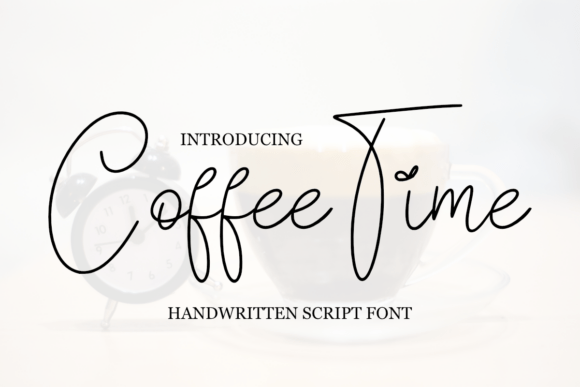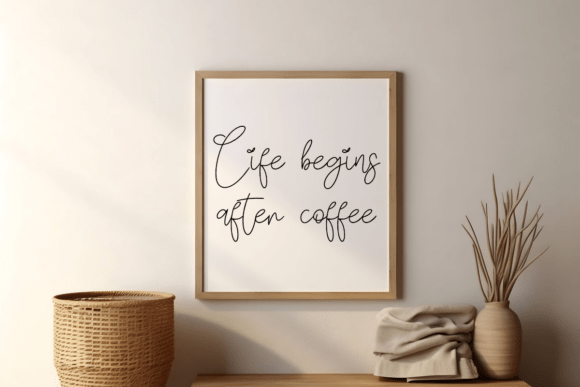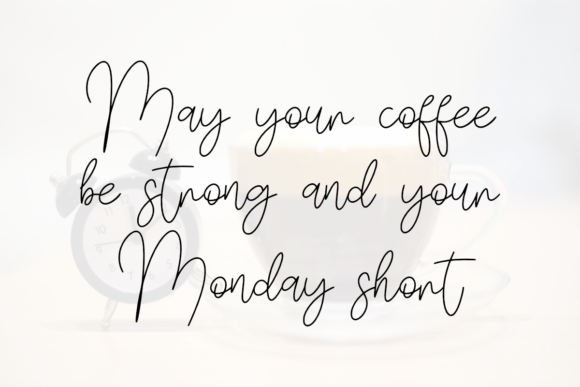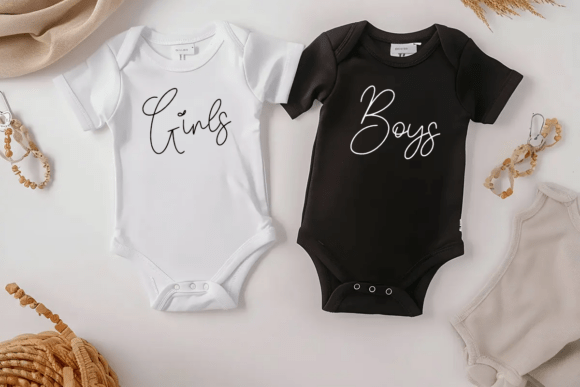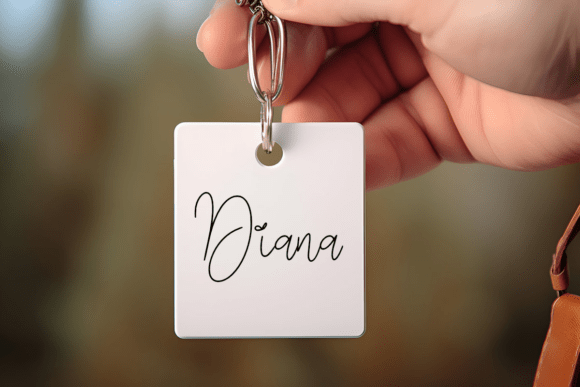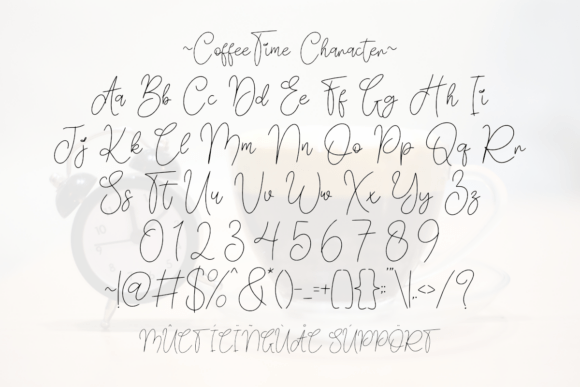
A Cup of Creativity: Unveiling the Coffee Time Font
There’s something magical about sipping a warm cup of coffee while brainstorming a new design project. The aroma fills the air, and your mind starts to wander, conjuring up ideas and inspiration. It’s moments like these that make design so thrilling. And what better way to capture that feeling than with a font that’s as sweet as a freshly brewed cup?
Enter Coffee Time Font, a charming handwritten font that’s sure to bring a smile to your face. This lovely font is designed to add a touch of joy and romance to any project, making it perfect for branding, logos, wedding designs, and more. Whether you’re a seasoned designer or just starting out, the Coffee Time Font is a valuable addition to your toolkit, offering a unique and elegant look that’s both casual and sophisticated.
- Font Family: Coffee Time Font is a unique, hand-drawn font designed to evoke the feeling of a warm cup of coffee.
- Unique Characteristics: Features a distinctive, hand-crafted look with subtle imperfections and nuances that give it a personal touch.
Coffee Time Font Review
Overall, I think the Coffee Time Font is a charming addition to any design project. It’s perfect for those who want a modern yet vintage feel to their text. The font is ✨ well-suited for coffee shop branding, bakery labels, and other food-related businesses.
Here are some things that I like about the font:
- ✨ Its unique blend of modern and vintage elements creates a visually appealing contrast.
- ✨ The font is highly legible, even at small font sizes.
- ✨ It’s a great choice for those who want to add a touch of personality to their text.
However, there are some limitations to the font:
- ⚠️ It may not be the best choice for formal or professional projects.
- ⚠️ The font can be a bit too playful for some audiences.
- ⚠️ It’s not ideal for projects that require a lot of text, as it can be overwhelming.
In conclusion, the Coffee Time Font is a great choice for designers who want to add a unique touch to their projects. While it may have some limitations, it’s definitely worth considering for the right projects.
The Coffee Time Font is perfect for designs that require a warm and inviting tone, such as:
Restaurants, cafes, and food establishments
Home decor and furniture designs
Use the Coffee Time Font to create a consistent brand identity and add a personal touch to your designs.
Q: What is the recommended line height for Coffee Time Font?
The recommended line height for Coffee Time Font is 1.2 to 1.5 times the font size. This will help to maintain readability and balance in your typography.